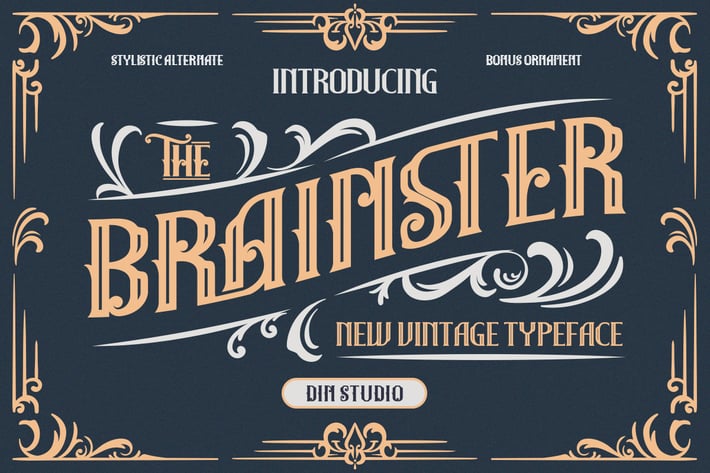
The Brainster - Display Font
Din-Studio
The Brainster is amazing display font. The font is suitable for any project like branding , lettering , tshirt print and may others.
- Accents (Multilingual characters)
- 22 Ligatures
- 54 Alternates and swashes
- Features in Solid and Outline version
- Bonus ornament